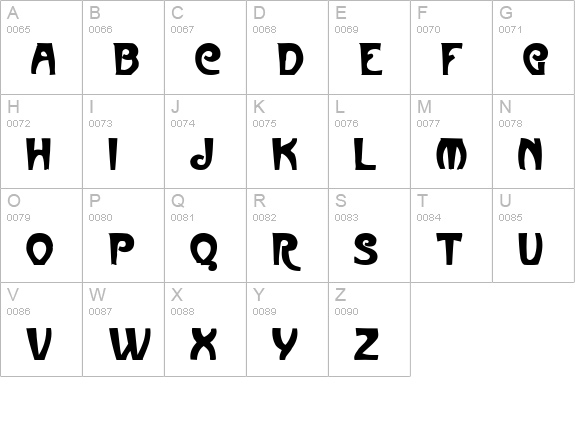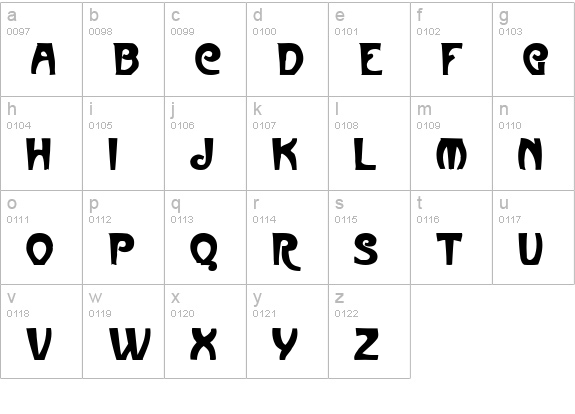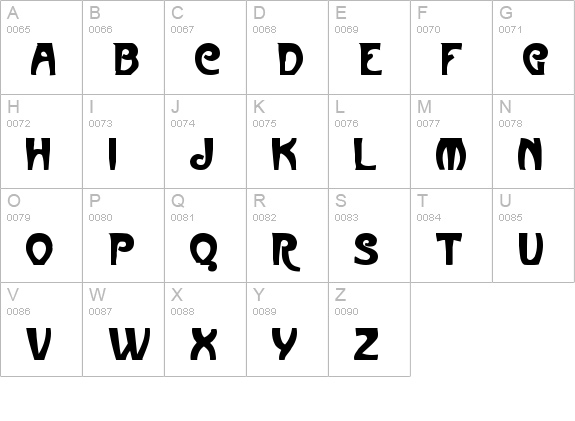
Paris Regular Font Details
Paris Regular is the standard, neutral variant in the Paris typeface family \xE2\x80\x94 well suited to general body text, paragraphs, and standard typographic work.
Paris Regular is a timeless and elegant font that exudes sophistication and class. With its clean lines and graceful curves, this font is perfect for any project that requires a touch of refinement. Whether you are designing a wedding invitation, a business card, or a website, Paris Regular will add a touch of elegance to your design. This font is not only visually stunning but also highly versatile. It can be used for both headings and body text, making it a great choice for a variety of projects. The letters are beautifully balanced, ensuring optimal legibility and readability, even at smaller sizes. One of the best things about Paris Regular is that it is freely available to download at FontsMarket.com. This means that you can add this stunning font to your collection without spending a dime. It's a fantastic opportunity to enhance your design projects with a high-quality font without breaking the bank. So, whether you are a professional designer or a DIY enthusiast, Paris Regular is a must-have font. Its timeless elegance and free availability make it the perfect choice for any project. Download it today at FontsMarket.com and elevate your designs to new heights of sophistication.